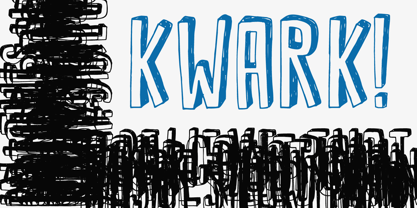
Kwark
by Hanoded
About Kwark Font Family
Kwark is a nice, cartoonesque outline font with a bit of grunginess. Yes, it is an all caps font, but upper- and lowercase letters differ in shape, so you can mix and match. The name is not really related to the way the font looks: kwark means 'curd' in Dutch. You think that sounds delicious? Well, then give Kwark a try!
Designers: David Kerkhoff
Publisher: Hanoded
Foundry: Hanoded
Design Owner: Hanoded